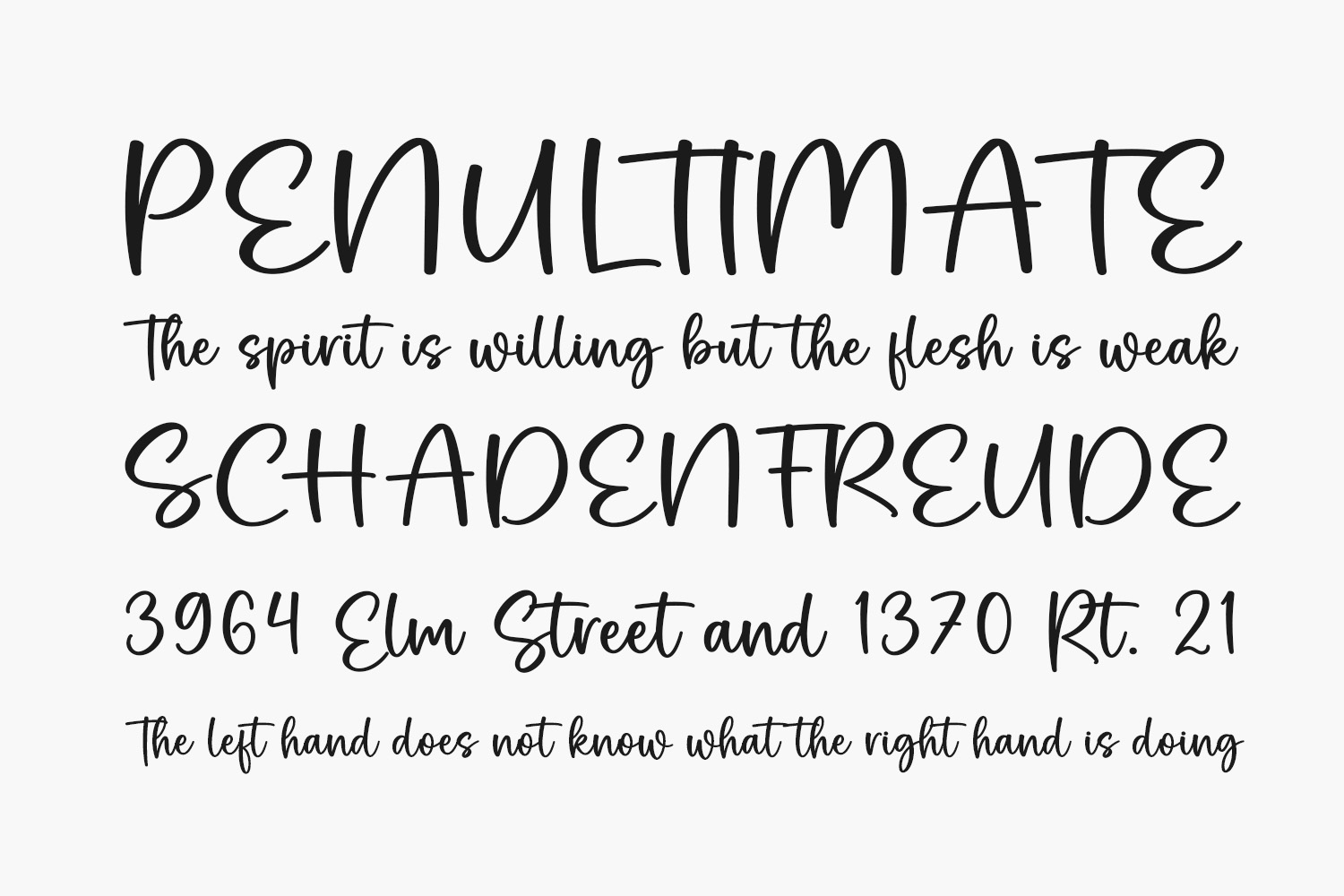
Sweety Free Font Family offers an exquisite duo of fonts, blending a clean sans-serif with a gracefully handwritten style. Its harmonious characters make it a versatile choice that complements a wide range of design projects. Sweety Free Font Family is free for personal use only. Please purchase the full version for commercial use.
Sweety Regular The quick brown fox jumps over the lazy dog
Sweety Cupcake The quick brown fox jumps over the lazy dog